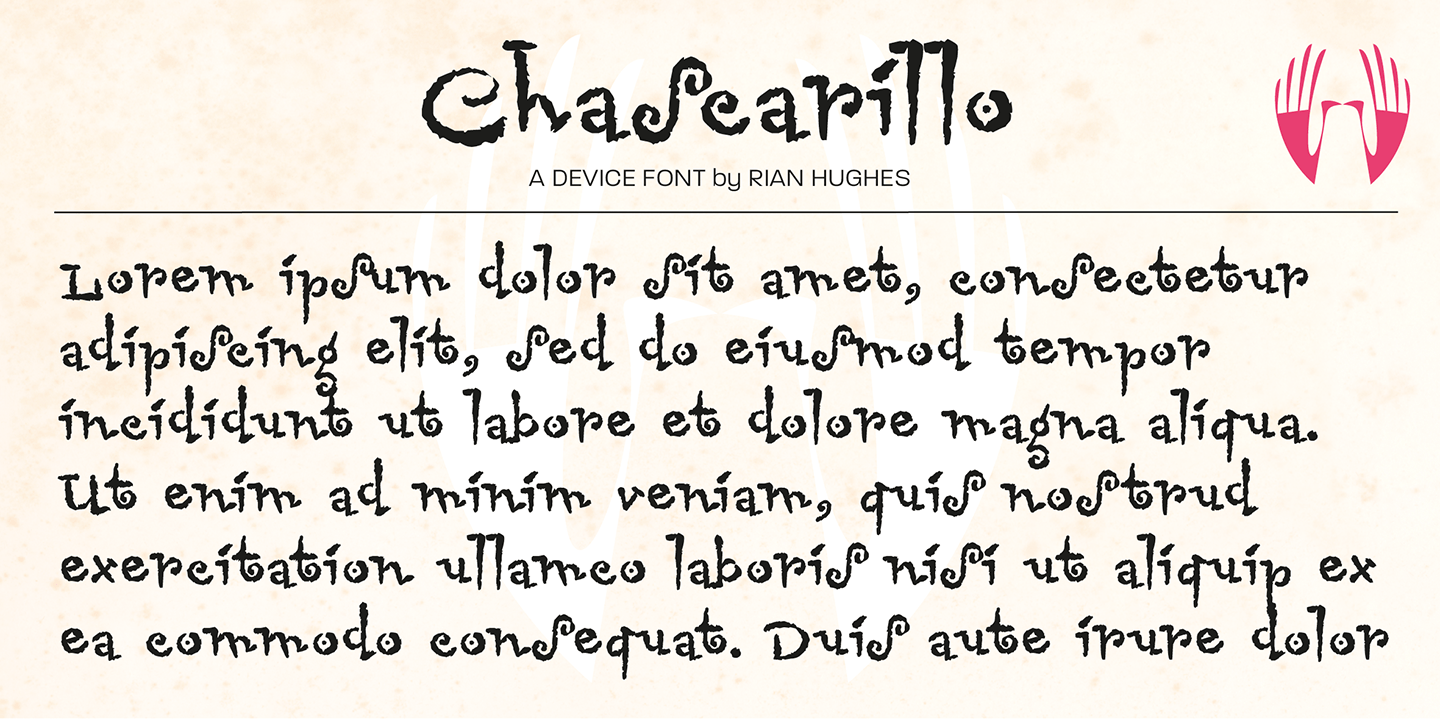
Chascarillo
Font Family by Device
Chascarillo is a casual script with a distressed, handwritten look that feels playful, offbeat, and full of personality. Its roughened texture and wacky character give it an intentionally imperfect charm, making it a strong choice when you want type that feels expressive rather than polished.
Offered as a single font style from Device, this design suits display-driven work where mood matters most. Use it for posters, packaging, social graphics, event pieces, apparel, or branding that calls for a fun, informal voice with a touch of special-effect grit.